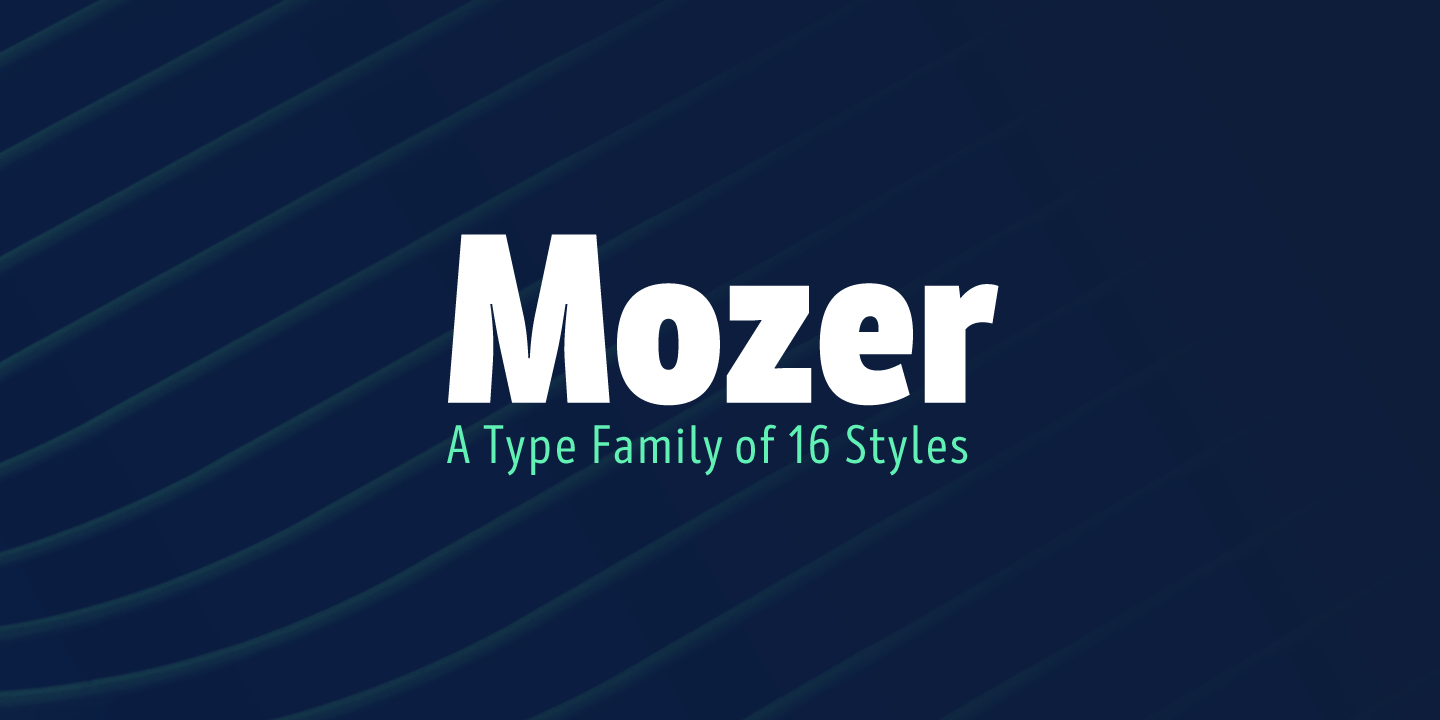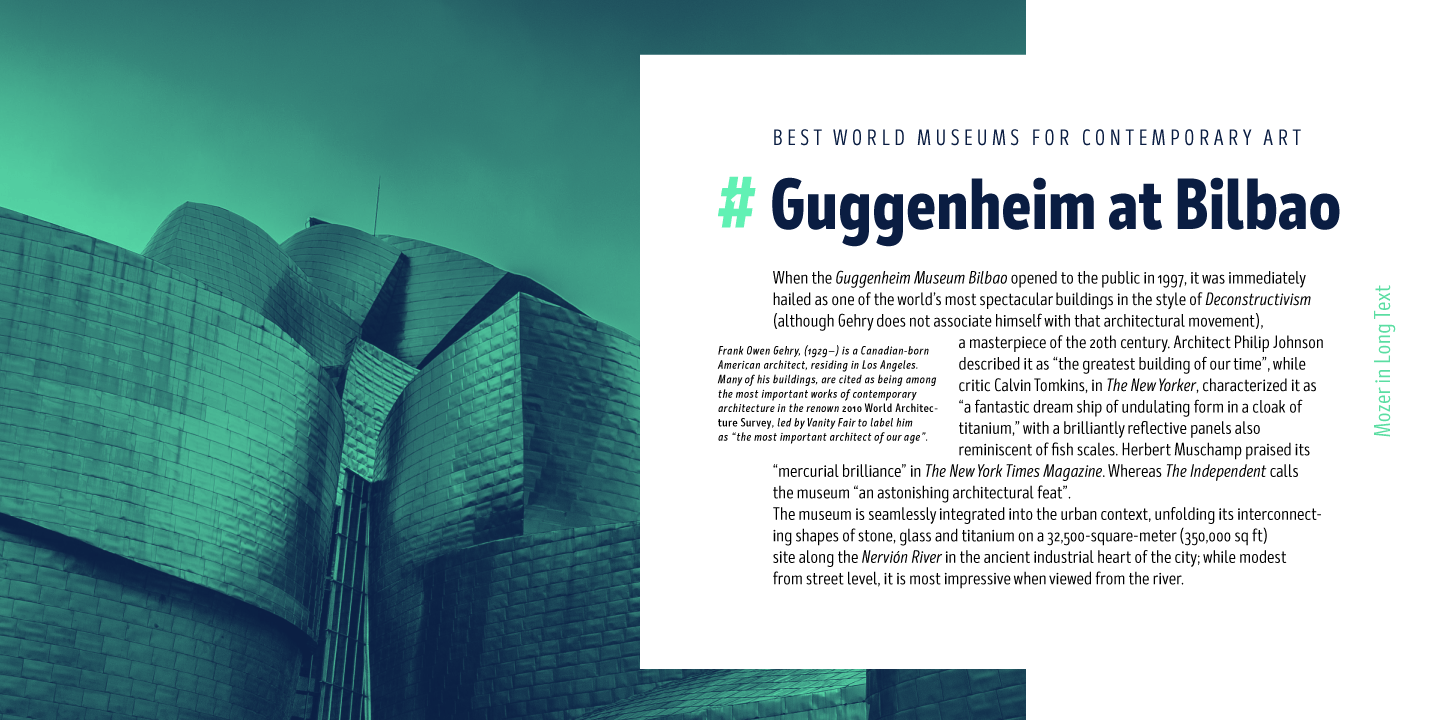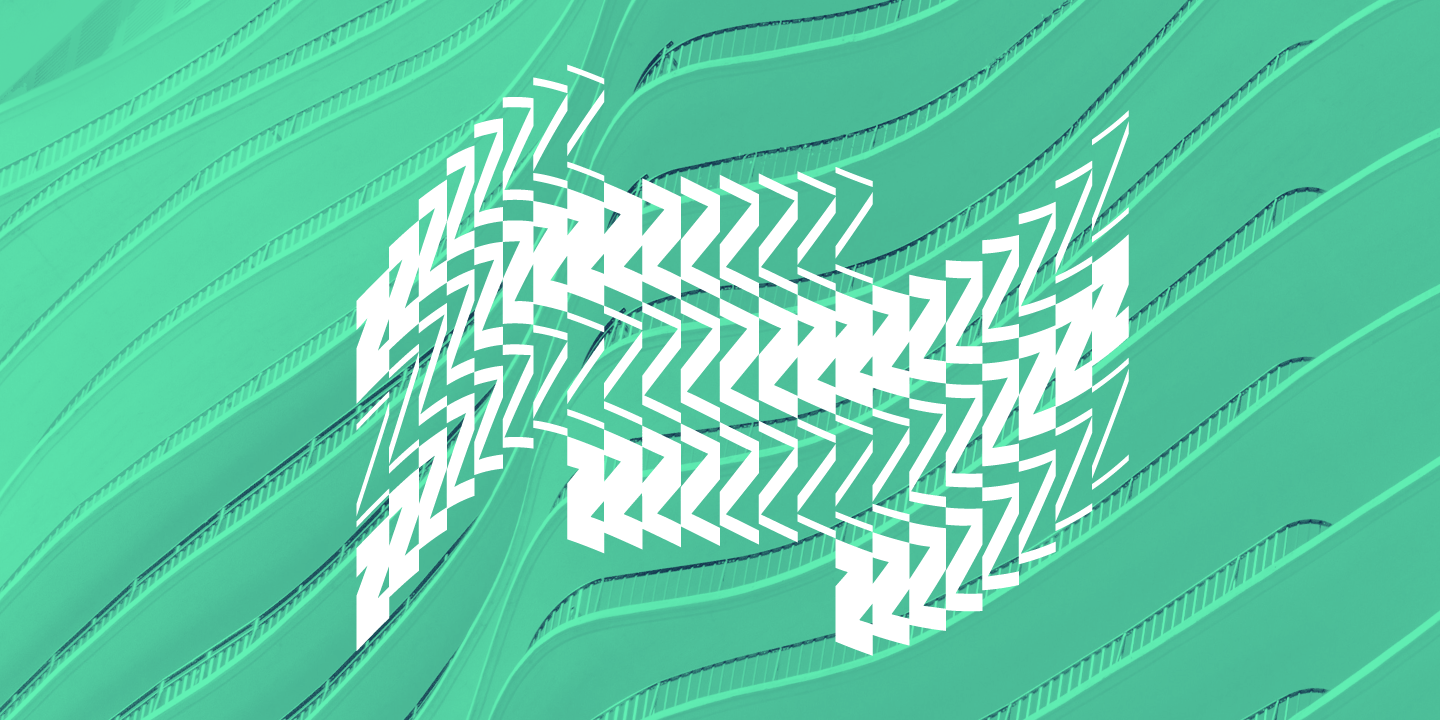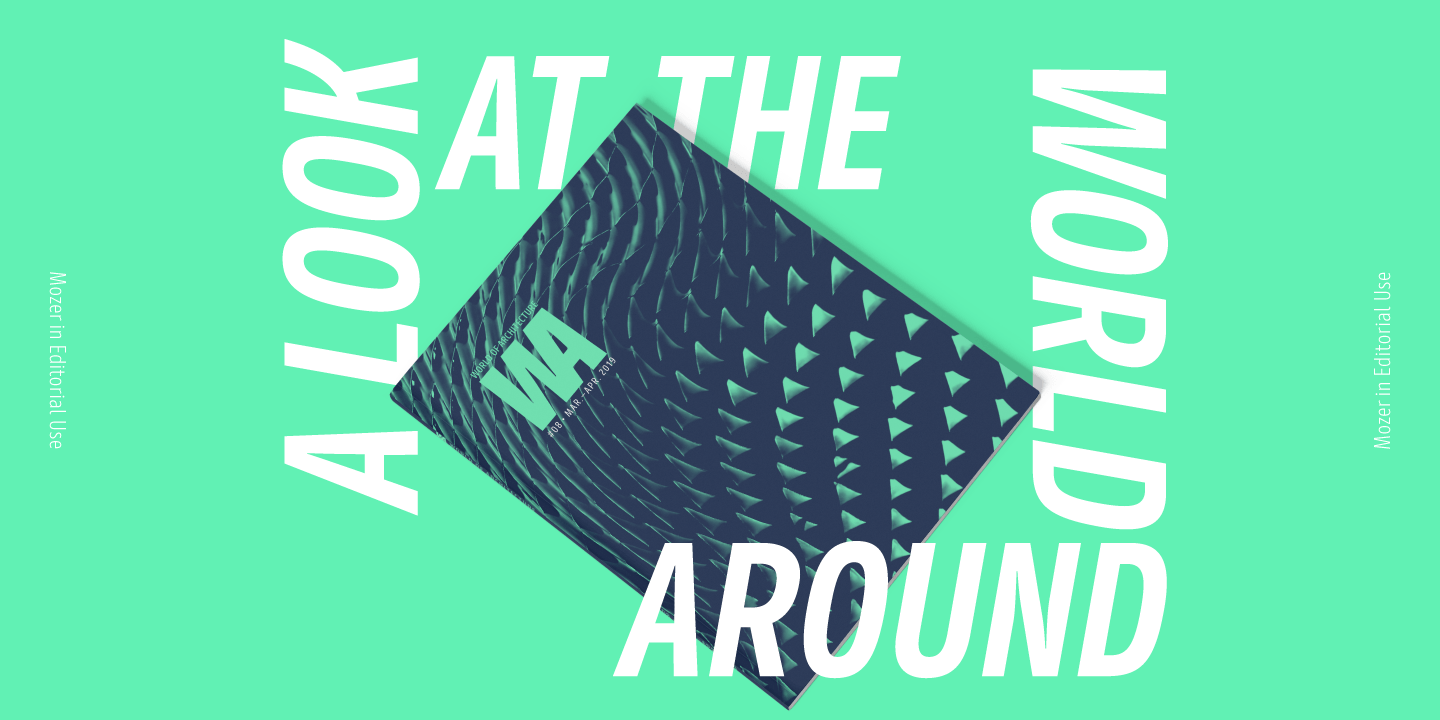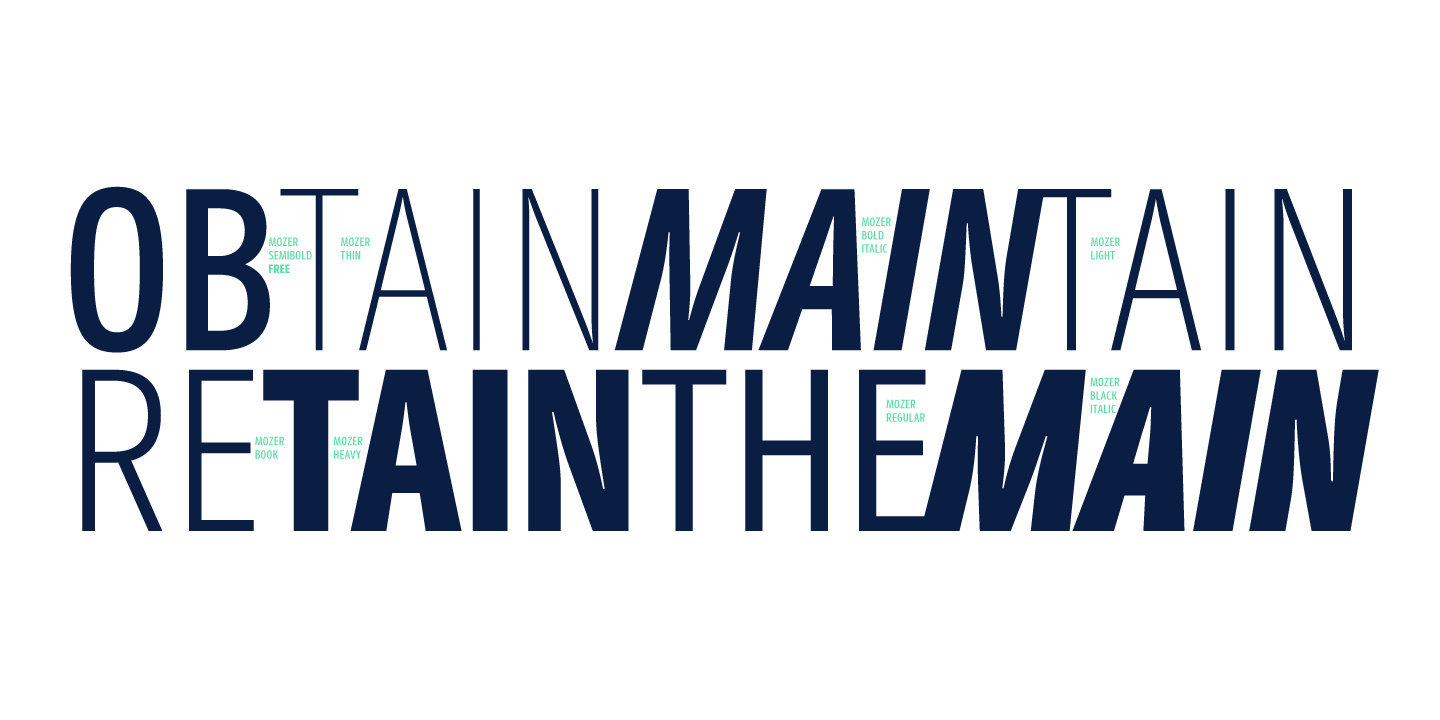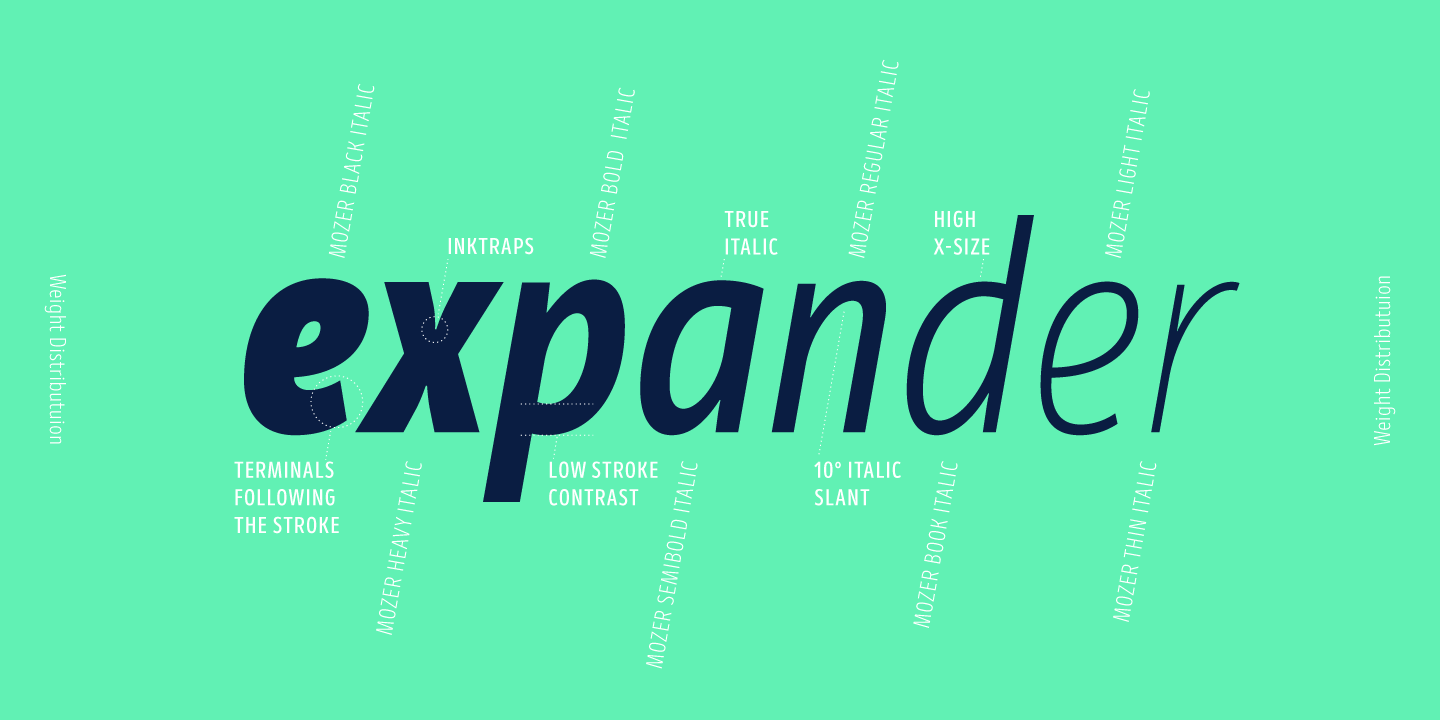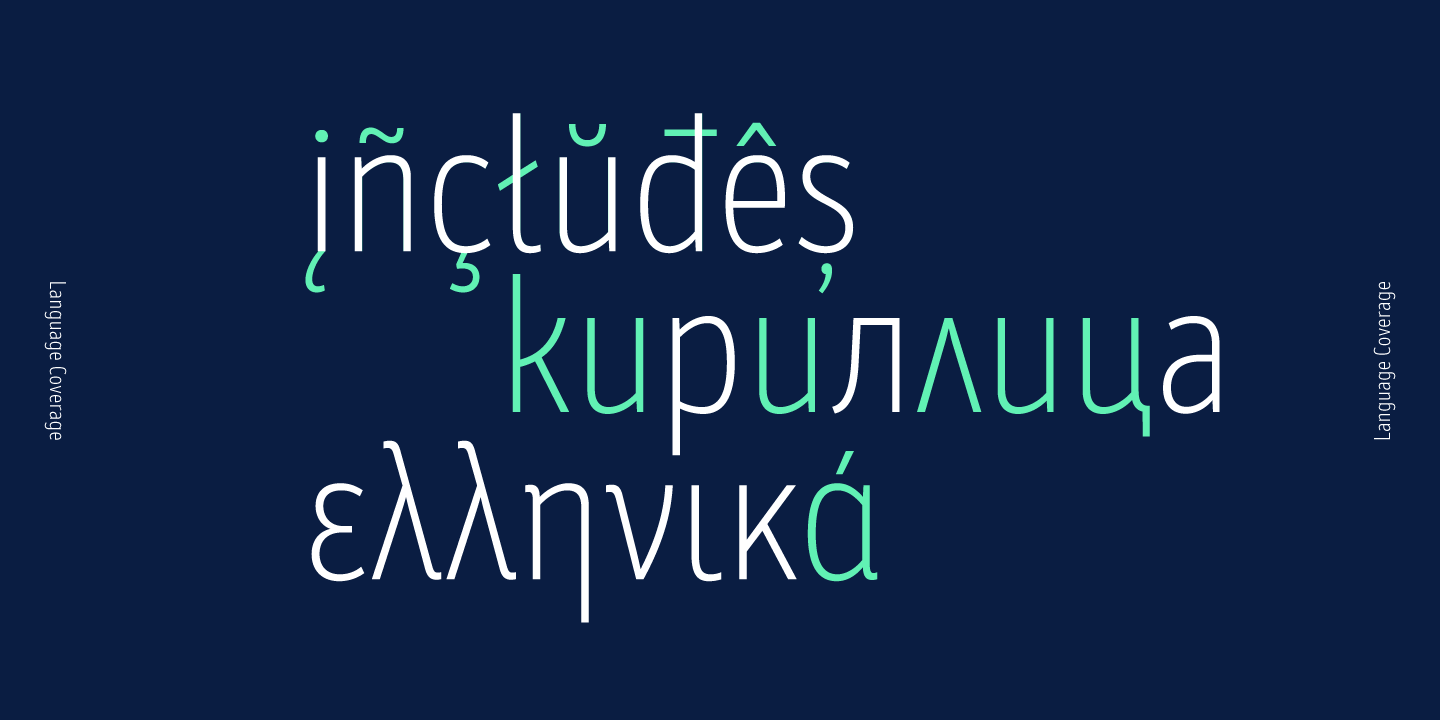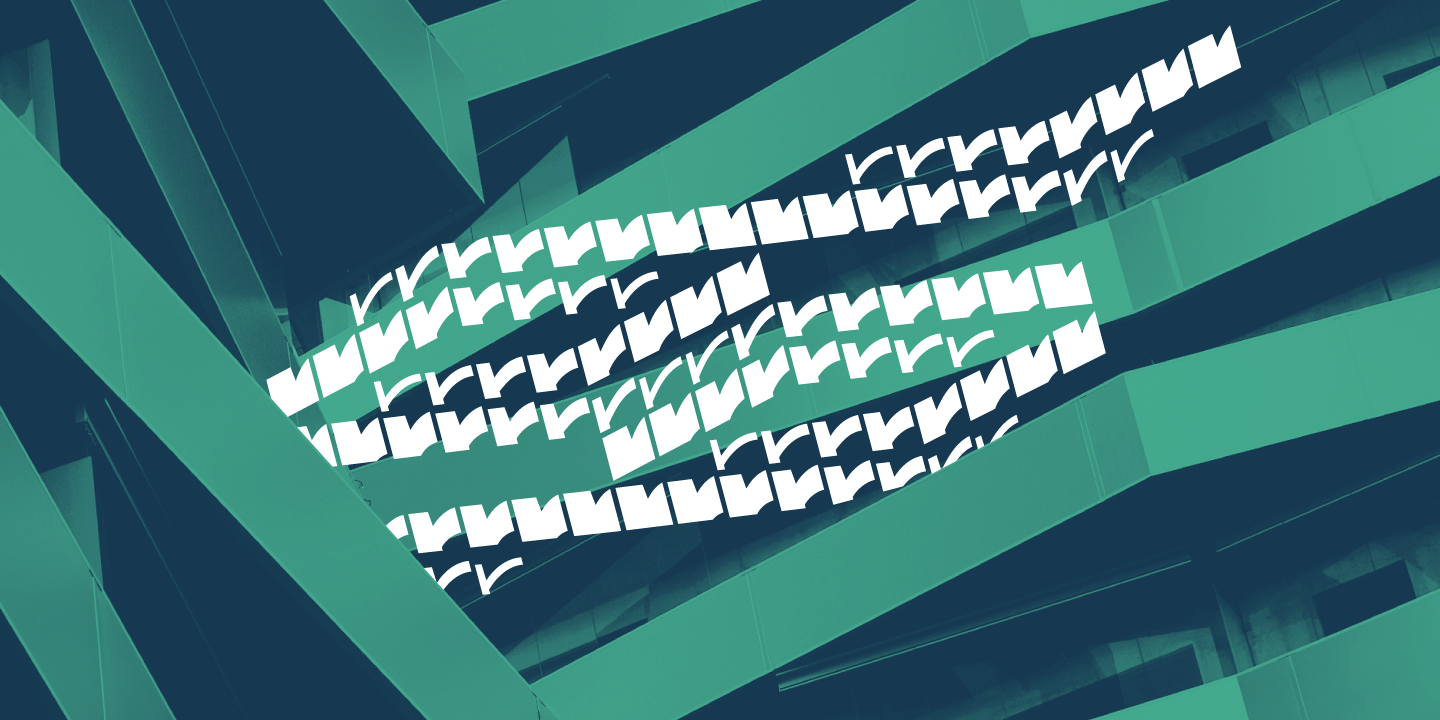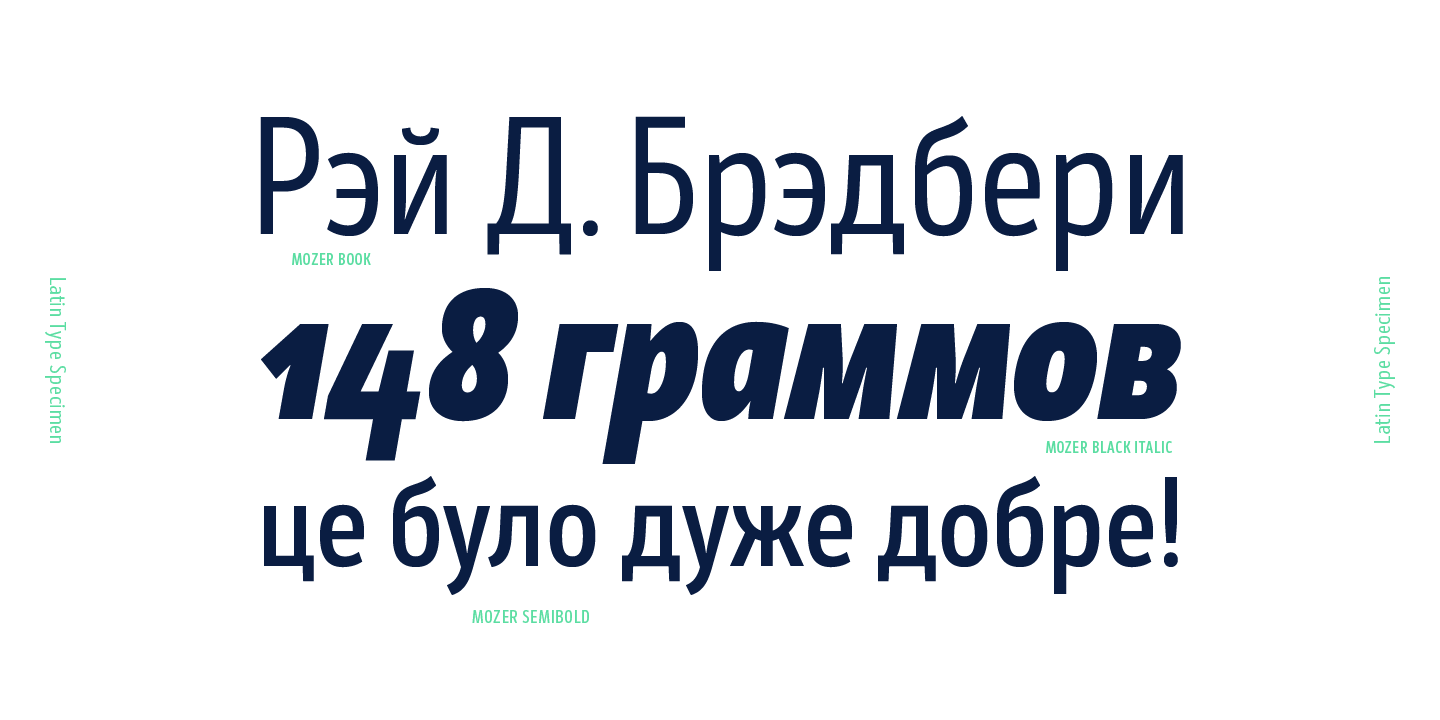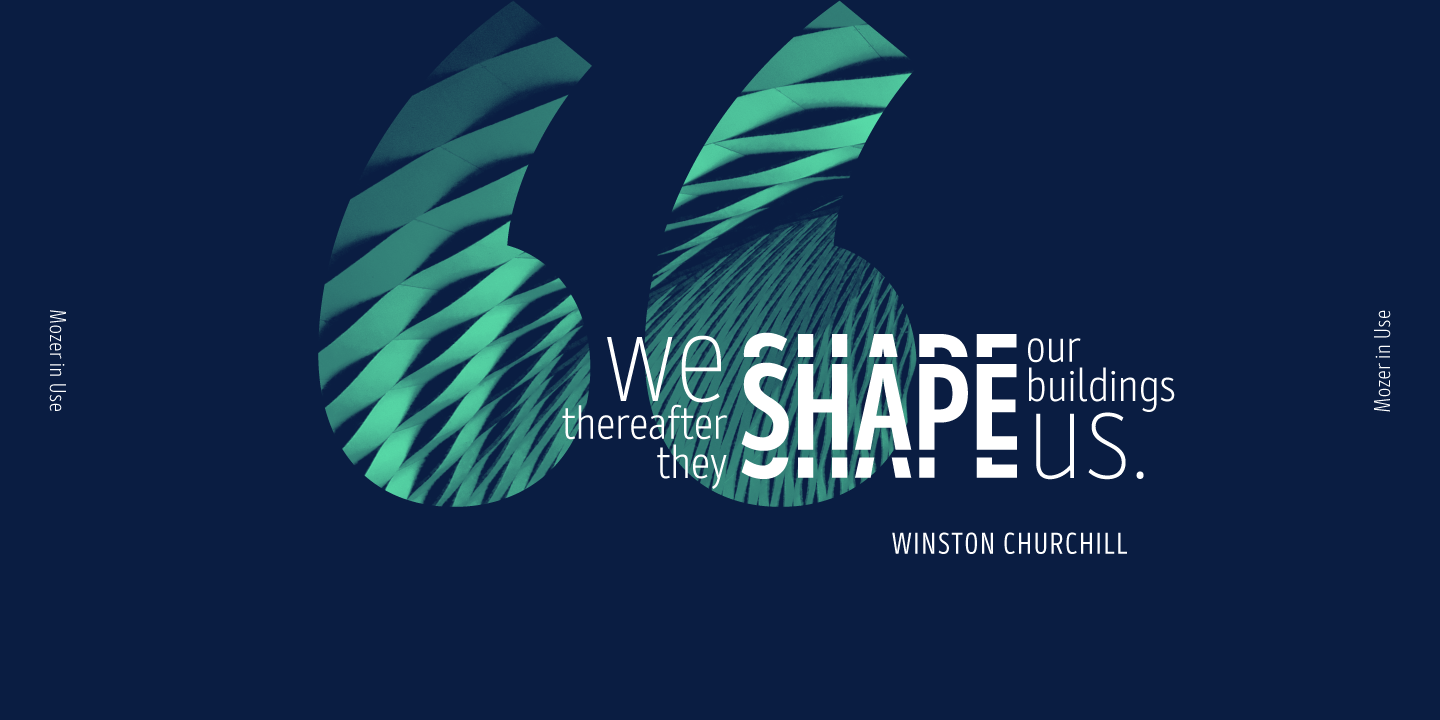
Mozer
Mozer is a semi-condensed neo-grotesque type family of 16 styles ranging from Thin to Black matched with true italics. With a generous x-height, economical width, moderate contrast and overall solid appearance this typeface shows an uncompromising legibility merged with a contemporary spirit that has not lost its individuality, even in the small details like the discreet ink traps. Mozer covers Extended Latin, Cyrillic and Greek and is suited with plenty of OpenType features, such as localisations, ligatures; four type of numerals including figures and tabular; case-sensitive forms; alternatives etc.
Features:
? Over 790 glyphs in 16 styles (Thin to Black);
? Extended Latin, Cyrillic and Greek scripts for more than 130 languages; ? Tall and balanced x-height;
? Semi-condensed width proportions;
? Moderate contrast and vertical stress;
? Neo-grotesque characteristics and terminals with humanistic flavor.